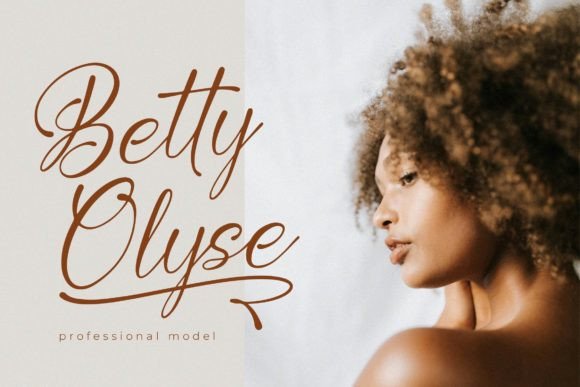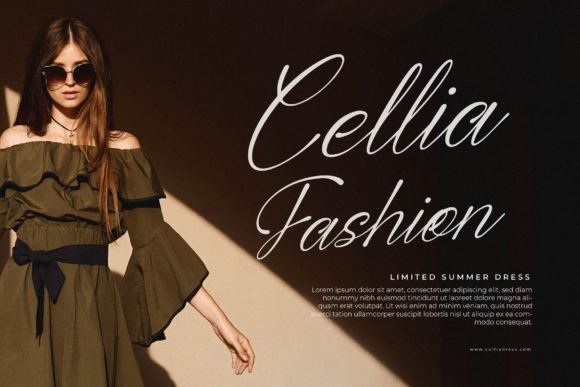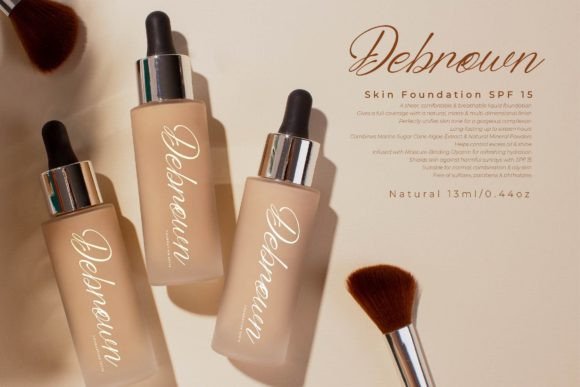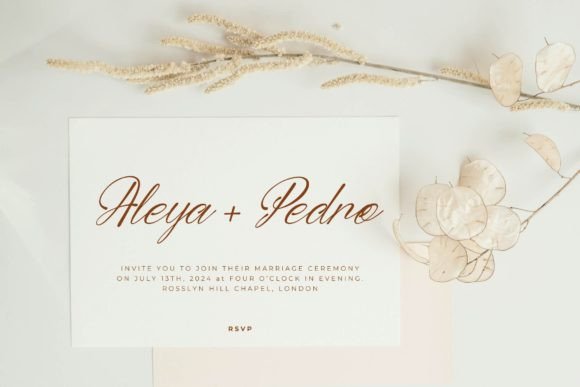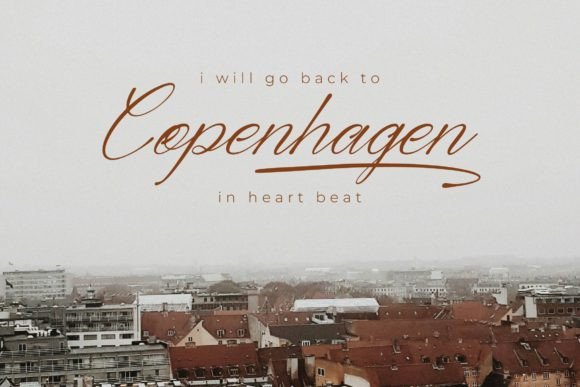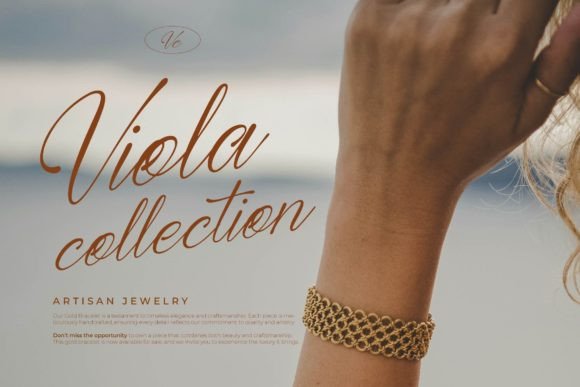
Discover the Warmth of Eldiyamor Font
As a designer, there’s nothing quite like the feeling of creating something truly special. You’re brainstorming ideas, sketching out concepts, and pouring your heart into a project. And then, it hits you – the perfect font to bring your design to life. For me, that moment happened when I stumbled upon Eldiyamor Font. Its natural, flowing script is like a breath of fresh air, adding a personal touch to any design.
Eldiyamor Font is more than just a pretty face – it’s a versatile tool for designers looking to create warm and inviting designs. Whether you’re crafting invitations, greeting cards, or any other project that needs a friendly feel, Eldiyamor Font is the perfect choice. With its unique character, it’s a valuable asset for any designer looking to add a personal touch to their work.
Eldiyamor Font Key Features
- Font Family: Eldiyamor Font is a unique, handwritten script font.
- Unique Characteristics: Eldiyamor Font features a distinctive, cursive style with subtle flair and flourishes, making it perfect for adding a touch of elegance and sophistication to any design.
Eldiyamor Font Review
I’ve had the chance to work with the Eldiyamor Font, and I must say it’s a unique addition to any design project. ✨ The font’s intricate details and swashes give it a touch of elegance, making it perfect for formal invitations, certificates, and other high-end materials.
One of the standout features of Eldiyamor is its versatility. ✨ It can be used for both body text and headings, and its high x-height makes it easily readable in a variety of contexts. I’ve also found it to be quite effective for creating visual interest in logos and branding materials.
However, there are some limitations to consider: ⚠️ The font may be too ornate for certain applications, such as body text in long-form content. Additionally, the swashes can be distracting if not used judiciously. It’s also worth noting that the font may not be suitable for small font sizes or low-resolution displays.
Overall, I think Eldiyamor is a solid choice for designers looking to add some flair to their projects. With its unique details and versatility, it’s sure to make a statement. However, it’s essential to use it thoughtfully and in contexts where its ornate nature will be effective.
- Unique details and swashes add elegance to formal materials
- Versatile for body text and headings
- Effective for creating visual interest in logos and branding
- May be too ornate for certain applications
- Swashes can be distracting if not used judiciously
- Not suitable for small font sizes or low-resolution displays
Tips for Getting the Most Out of Eldiyamor Font
To get the most out of the Eldiyamor font, try using it in combination with other elegant fonts, such as serif or sans-serif fonts. You can also experiment with different font sizes and colors to create a unique look.
Common use cases for the Eldiyamor font include:
1. Wedding invitations and stationery
2. Luxury brand logos and marketing materials
3. Fine art and creative projects